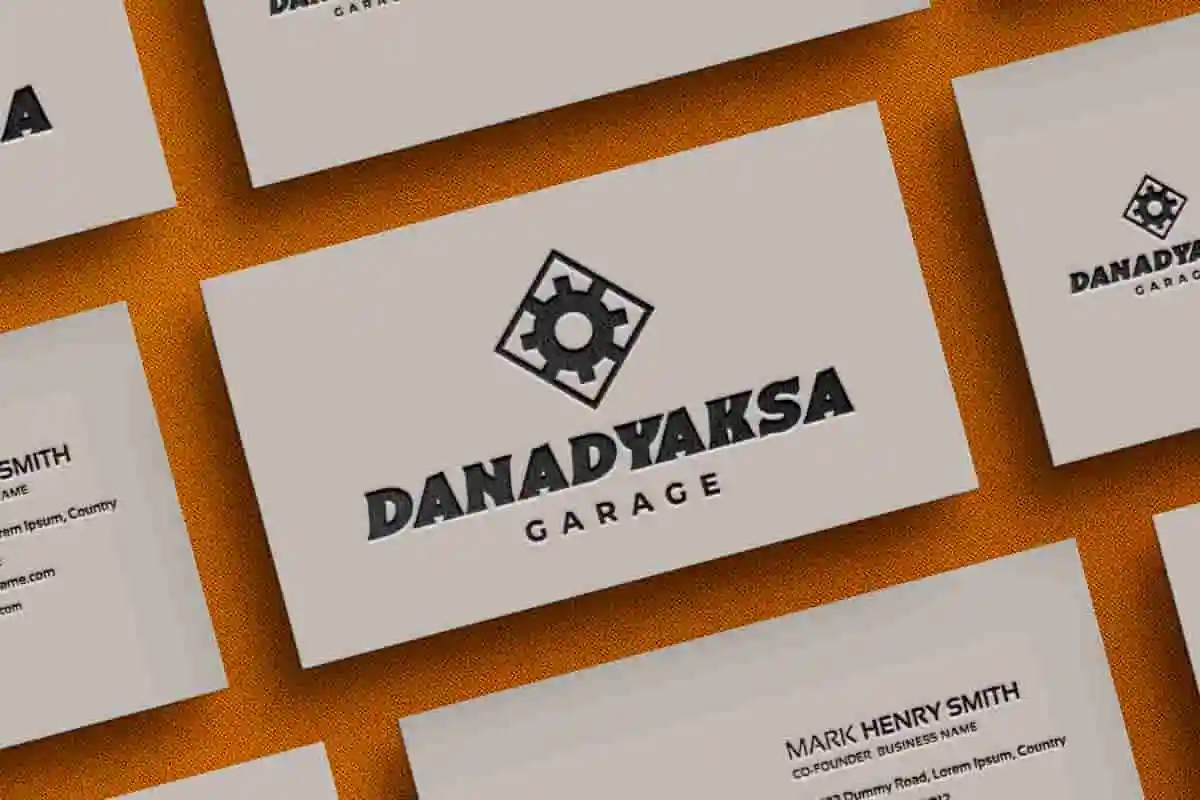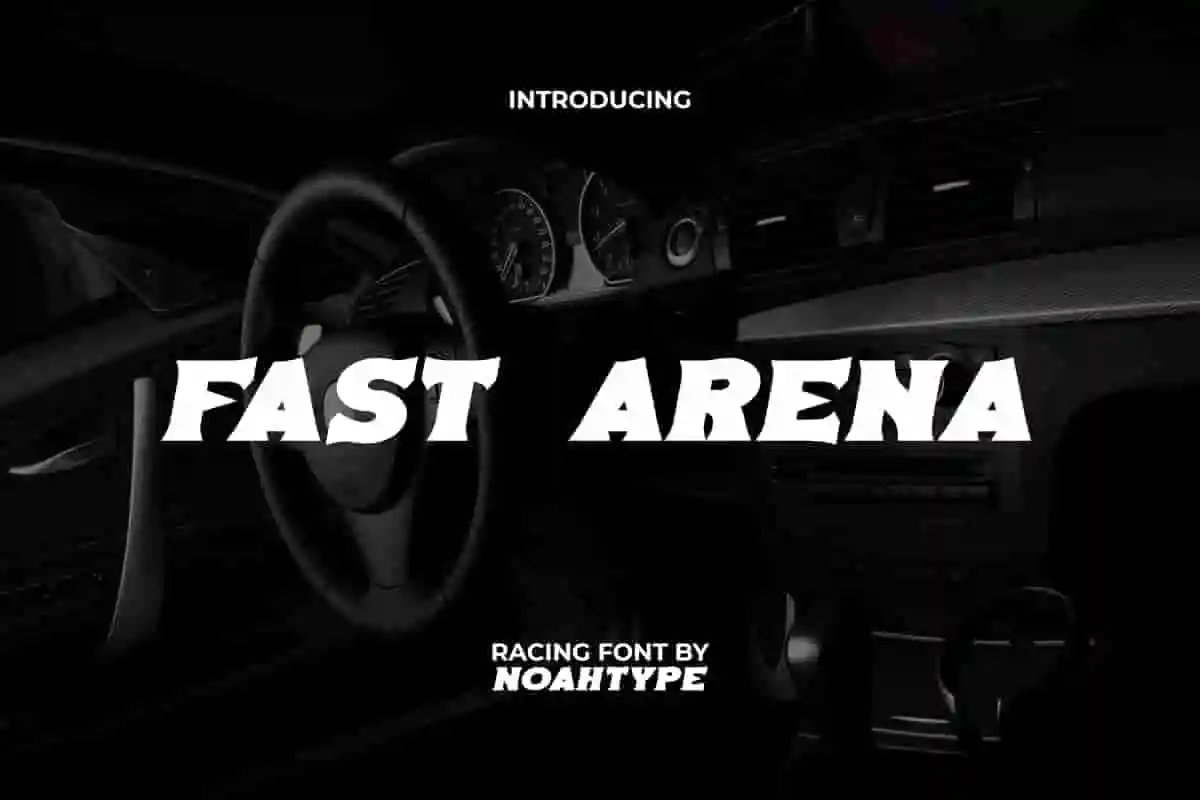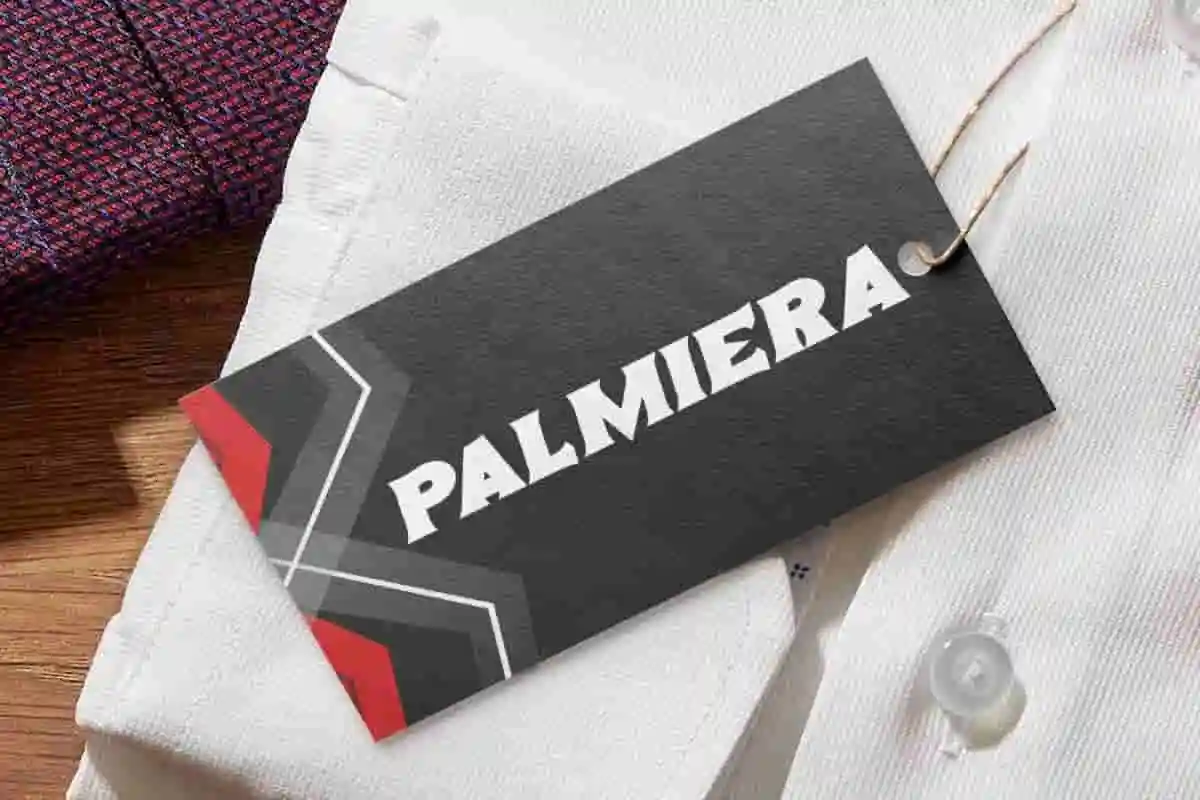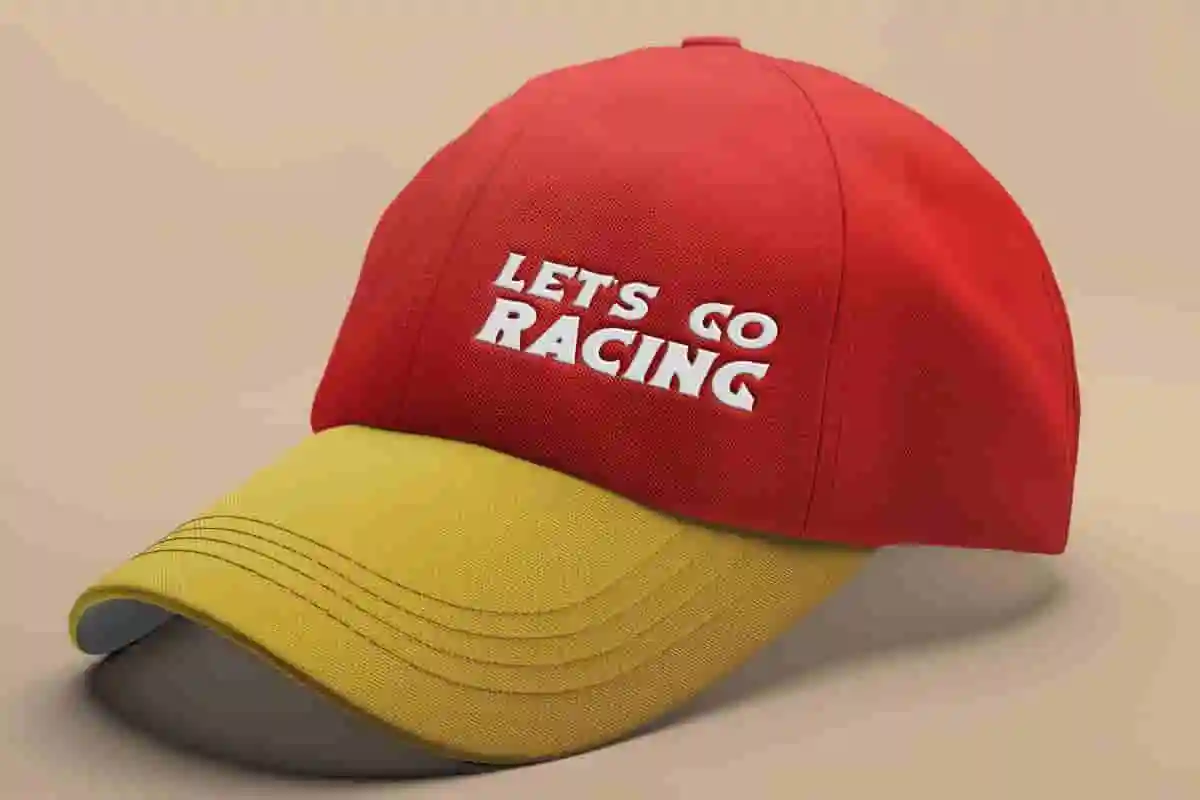
Fast Arena Font is a bold and unique racing display font, created by NoahType. This font has bold and unique characters so it can be read clearly and will not make your design boring. It will be perfect for any projects, such as stationery, custom design, invitation, label, brand image, cover, menu, poster, printing, product packaging, quotes, signage, website, and many more!
Fast Arena Font includes full set of ALL CAPS for Uppercase and Lowercase Basic Characters, Numerals, Punctuation, and Symbol. This stylish font will make your design standout and also a perfect choice for many industries, such as sports, game, racing, movie, accessories, automotive, advertising, art, café, event or festival, fashion, printing, publishing, etc.